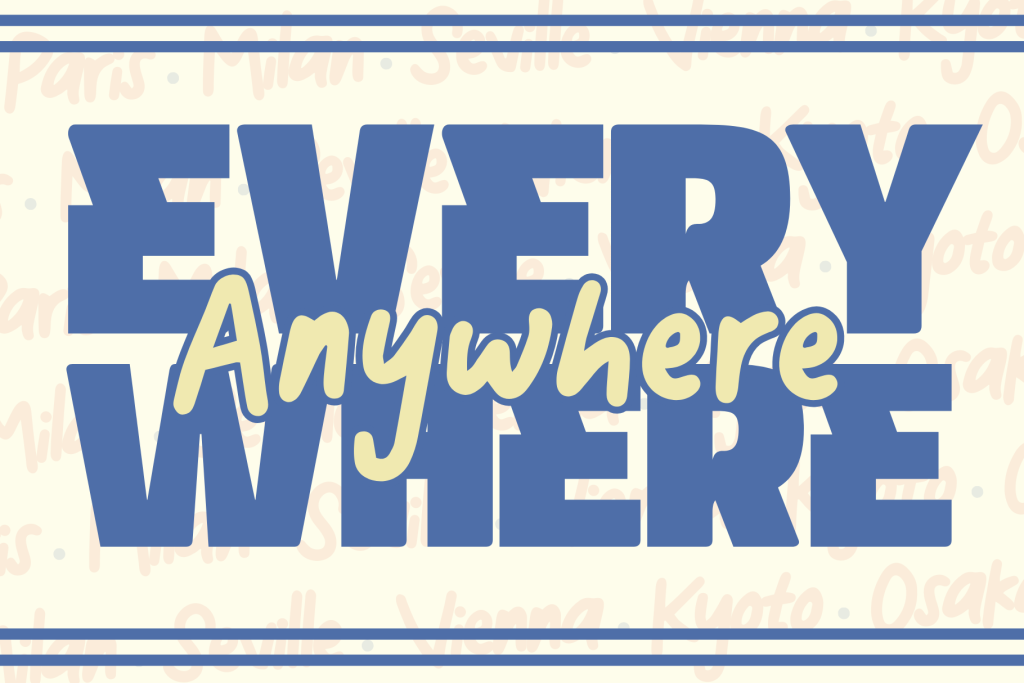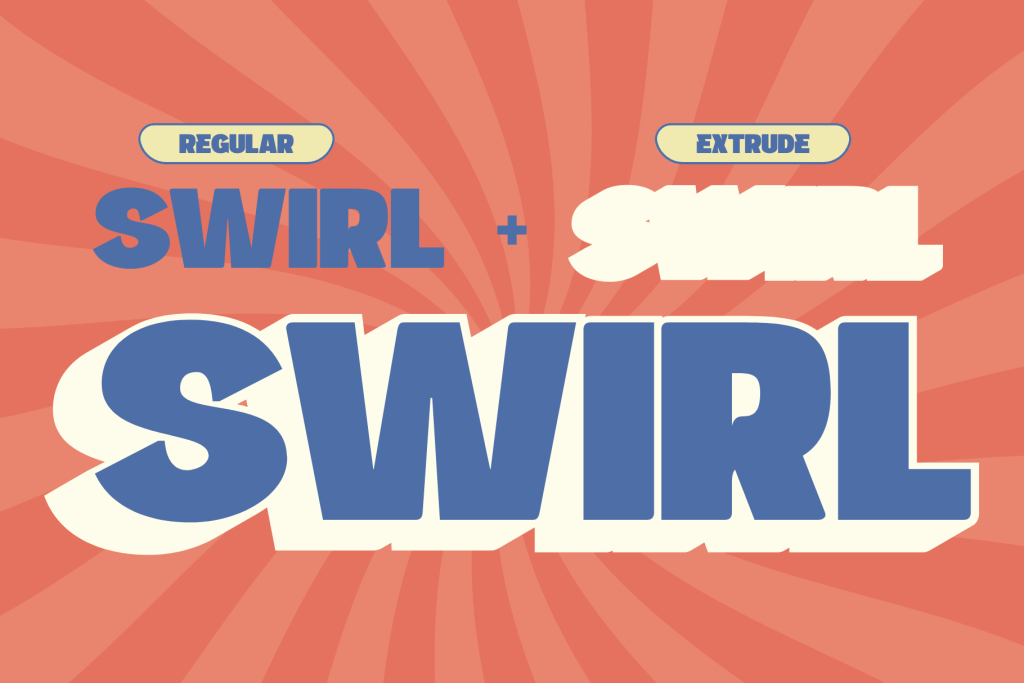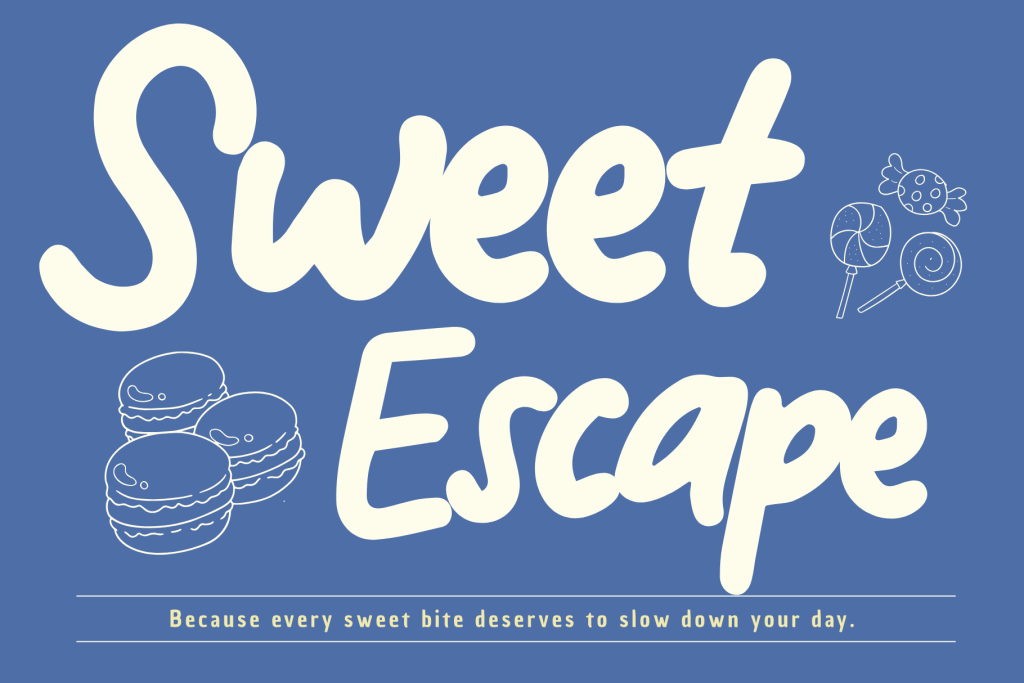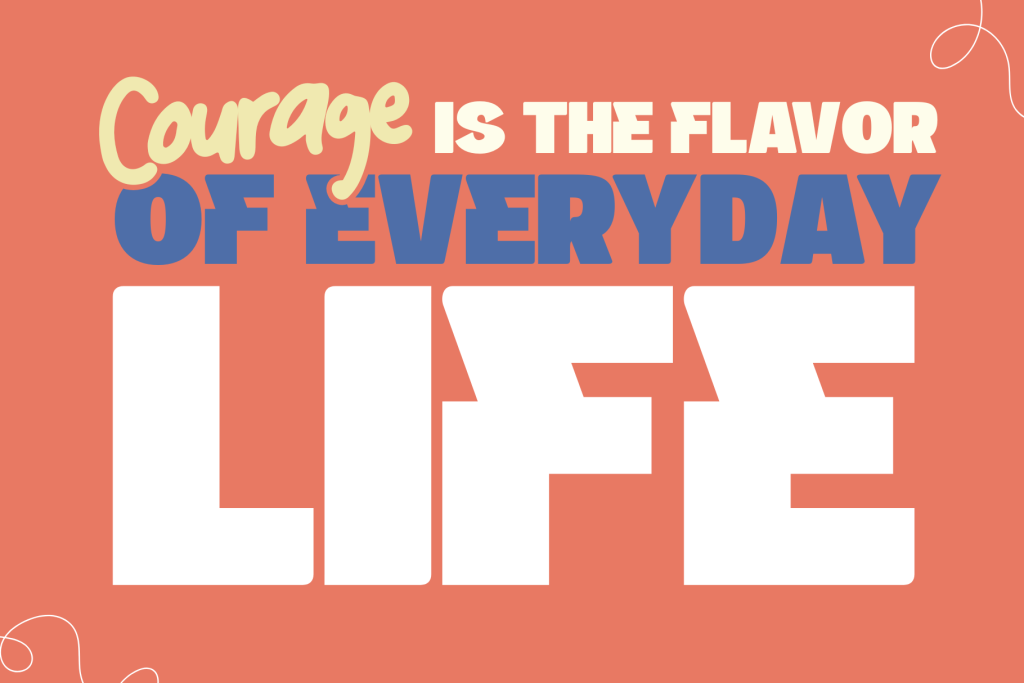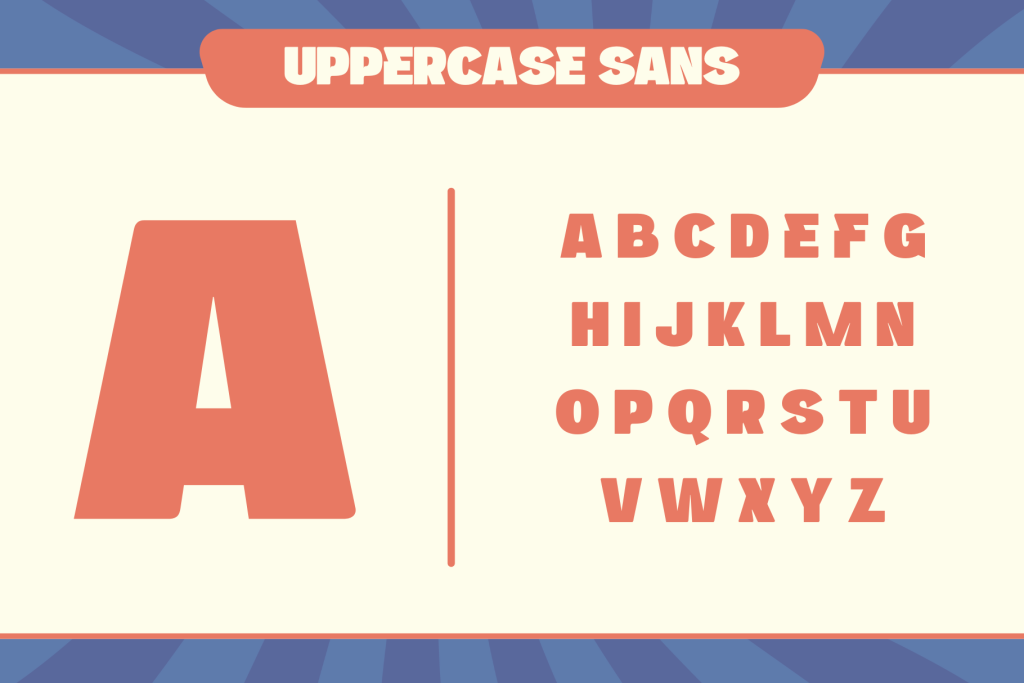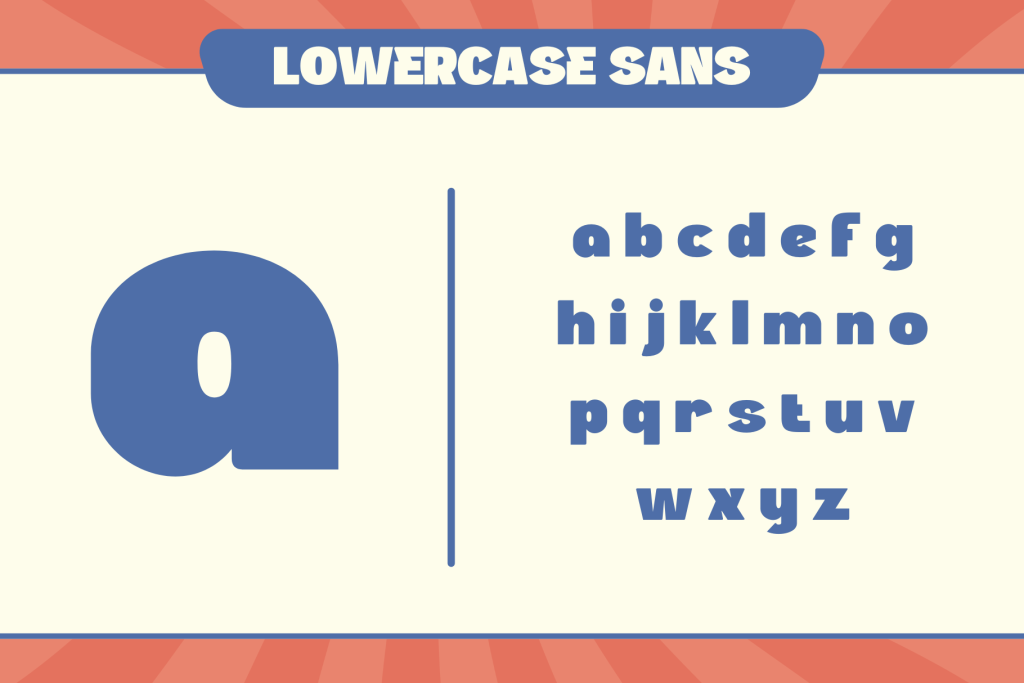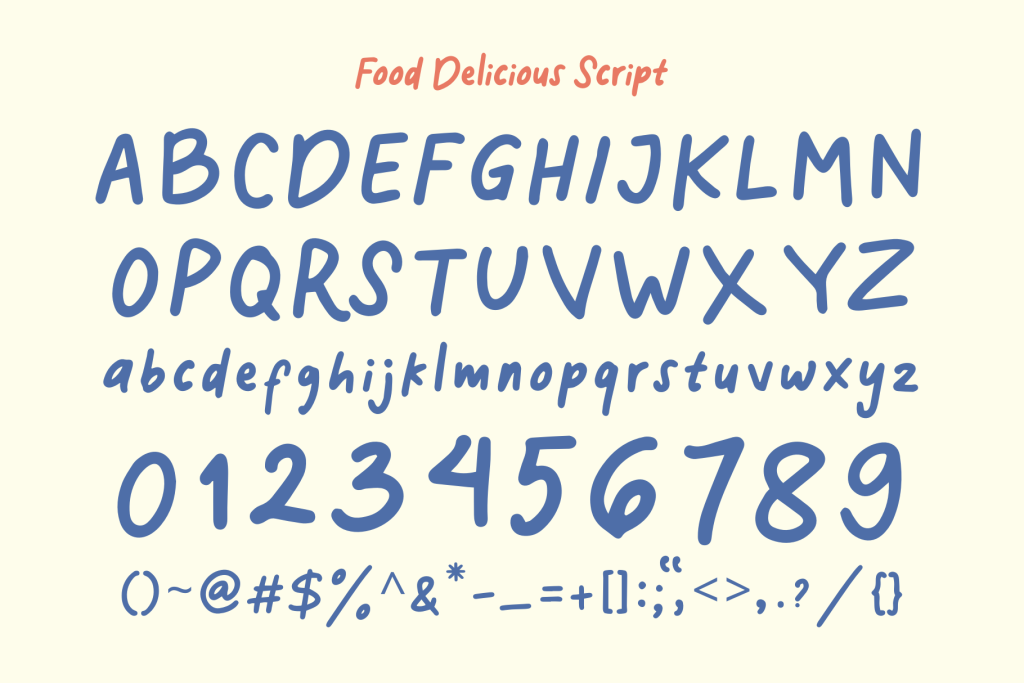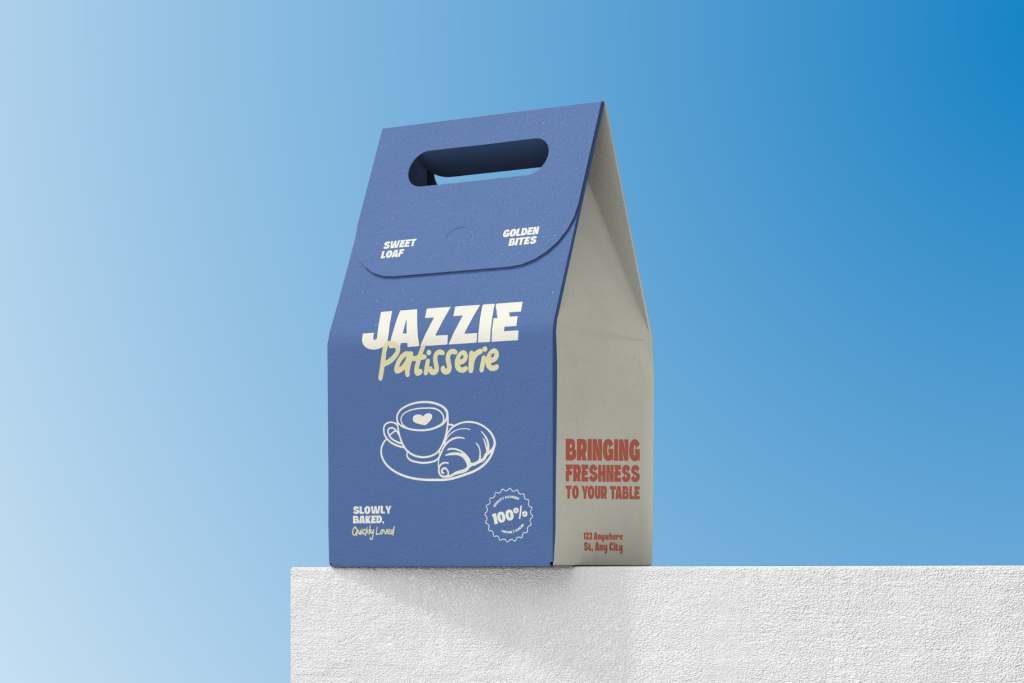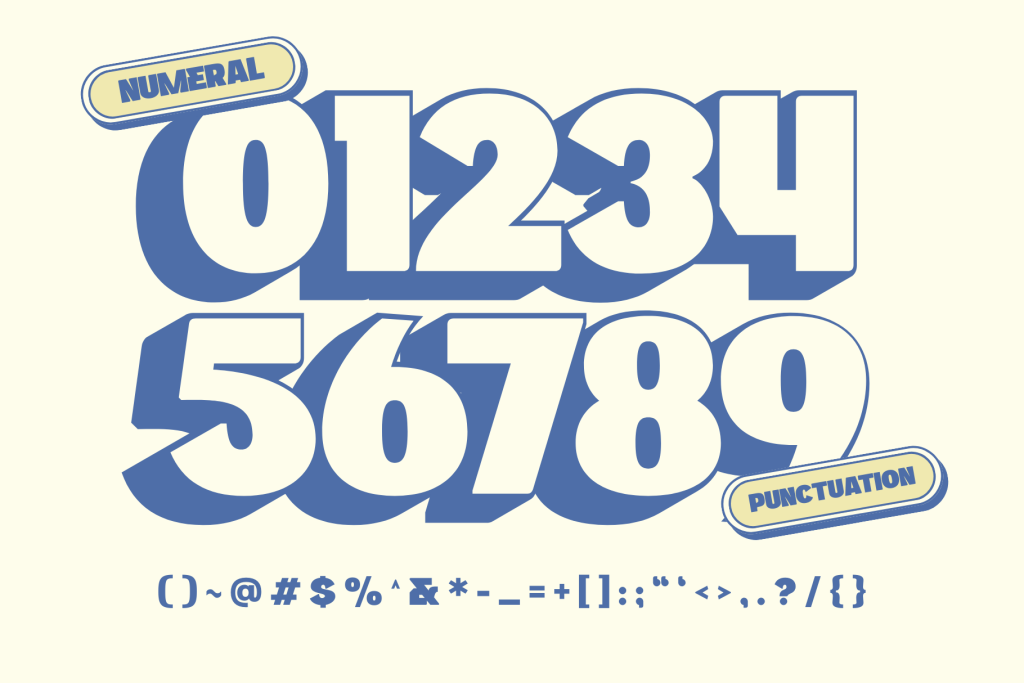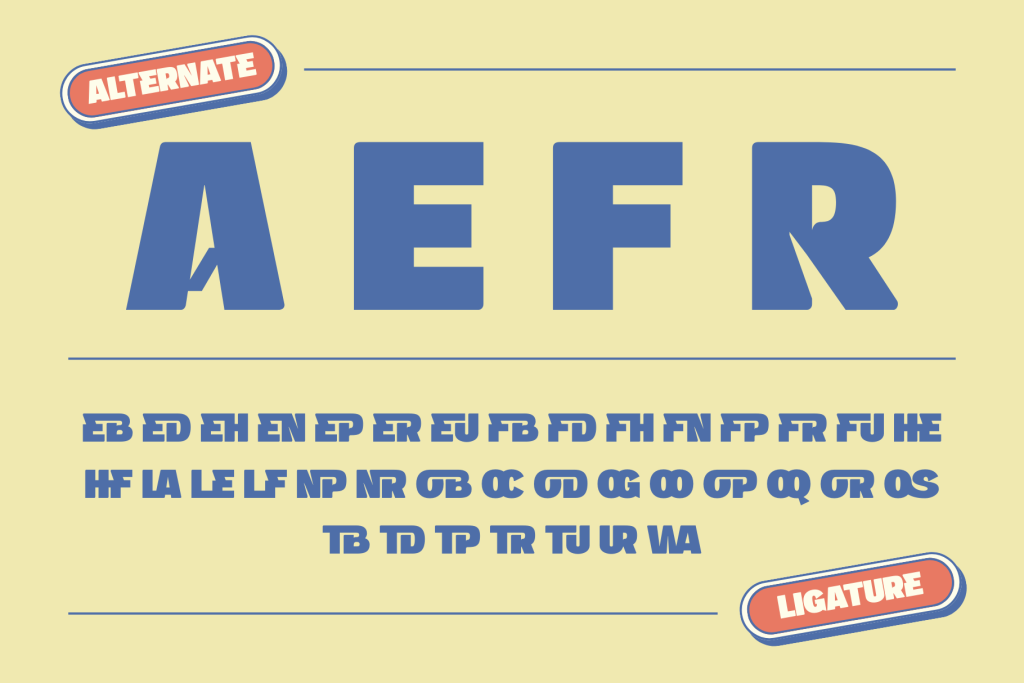
Food Delicious – Branding Logo Font Duo
Timeless typographic style made to elevate logos, marketing visuals, digital content, and stylish print projects.
Food Delicious is a playful font duo designed to make your food promotions stand out. It combines a clean sans with bold extrude and a charming handwritten style, perfect for menus, packaging, cafe branding, or social media posts. The sans brings clarity and impact, while the handwritten touch adds warmth and authenticity. Together, they create an appetizing and eye-catching look that captures attention and enhances the flavor of your design.